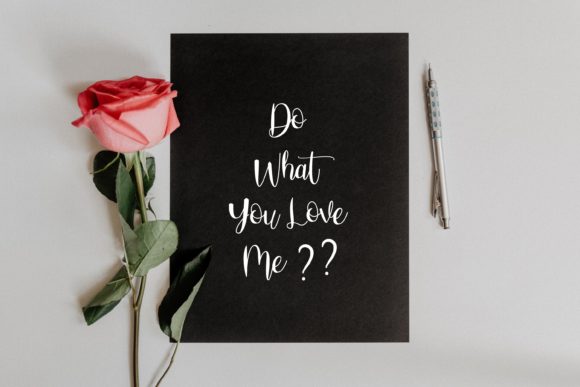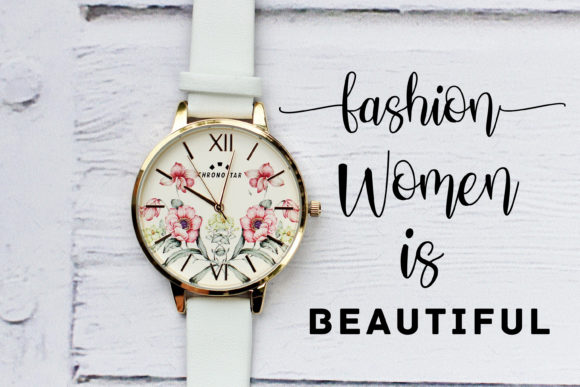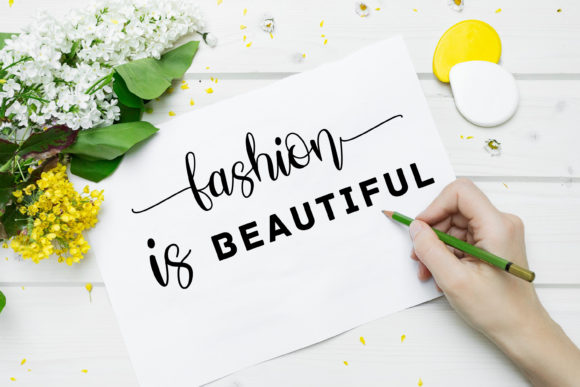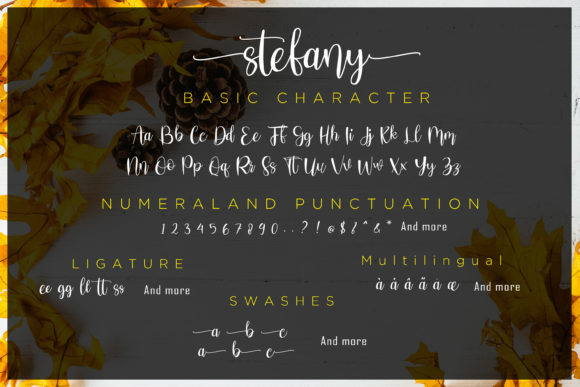
Stefany Font
About Stefany Font
Stefany is inspired by classic typography and brings its own unique style to any design project. Whether it’s for web, print, moving images or anything else this handwritten font will look spectacular.